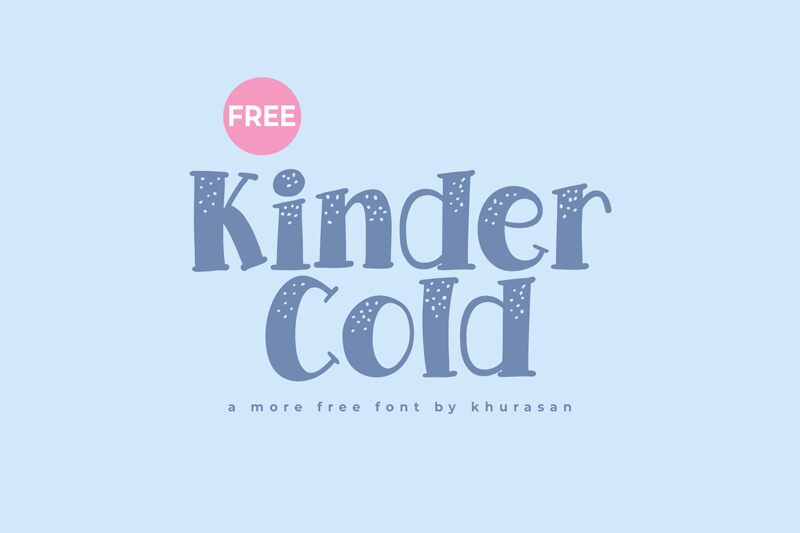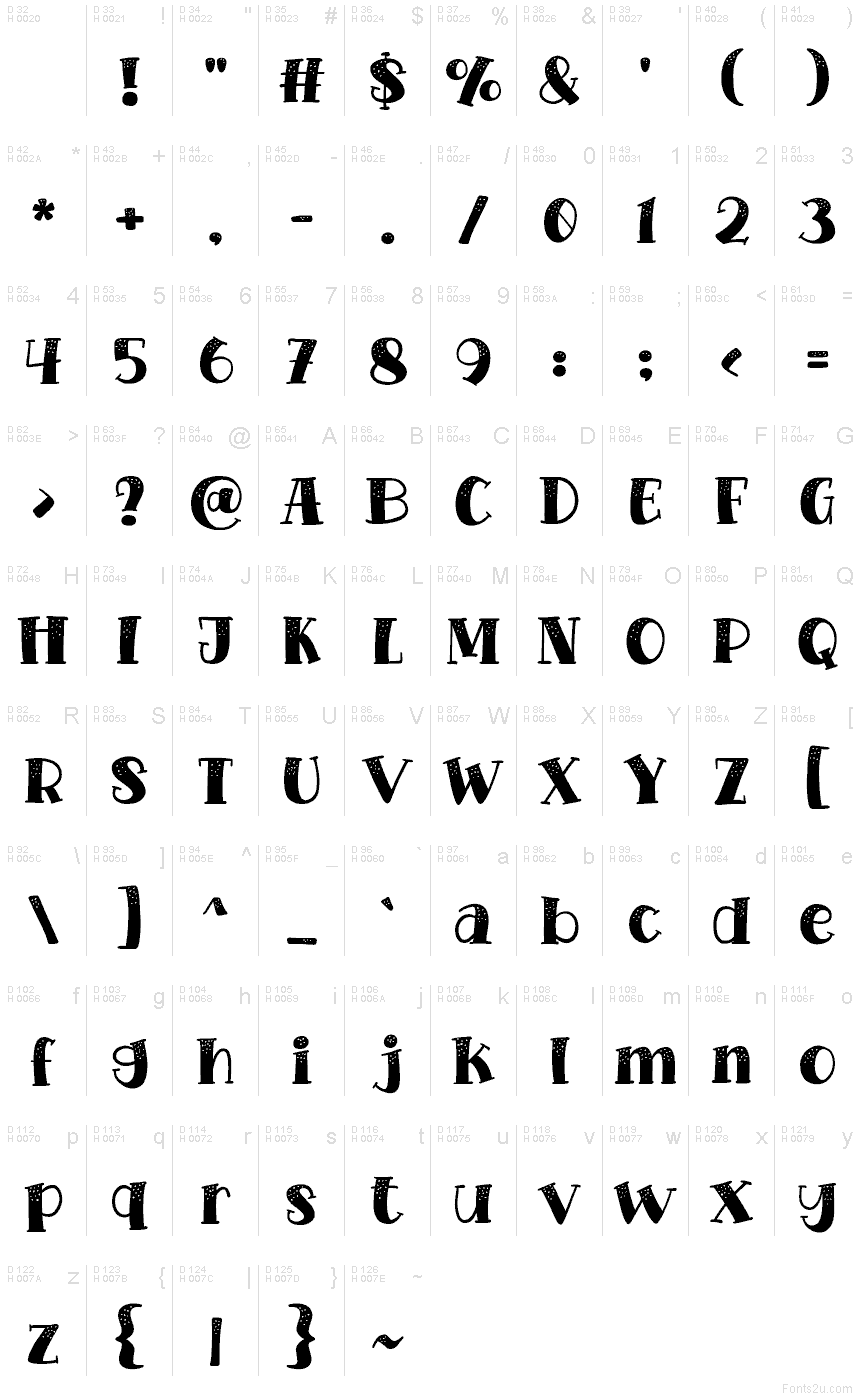
Kinder Cold font by Khurasan is a free cartoon display typeface with a frosty, hand-drawn charm. Chunky letterforms wobble slightly, and the speckled “snowy” texture inside each character gives it a cozy, mitten-wearing feel. It reads like a playful doodle in thick marker, with enough weight and spacing to stay legible even at smaller sizes while still feeling bold and fun up close.
Using Kinder Cold, this free font shines on kids’ book covers, winter festival posters, holiday cards, classroom materials, party invitations, and friendly product packaging. Its bouncy rhythm pulls the eye along, making headlines feel warm and animated rather than stiff. For a simple pairing tip, use Kinder Cold for titles and match it with a clean sans serif for body text to keep your layouts readable and lively.
Kinder Cold